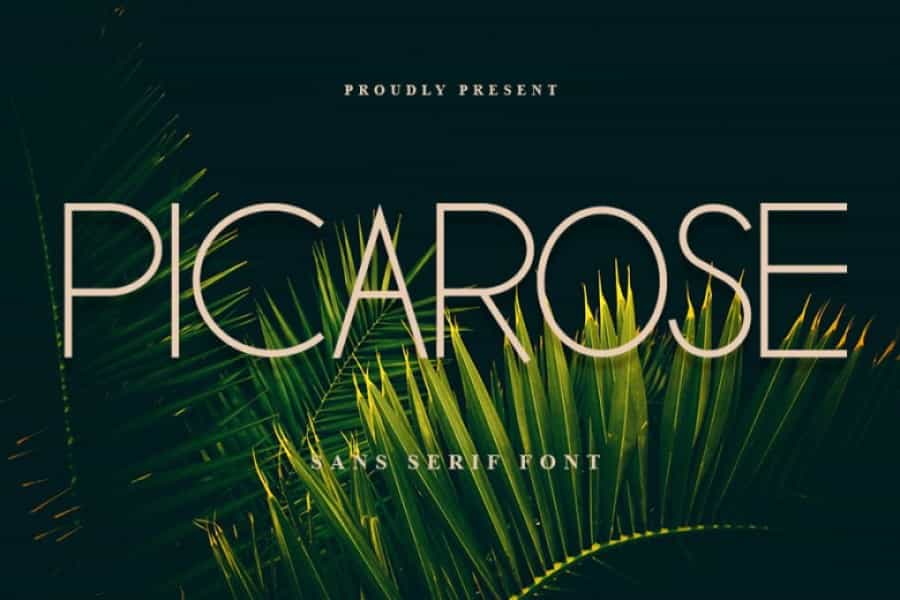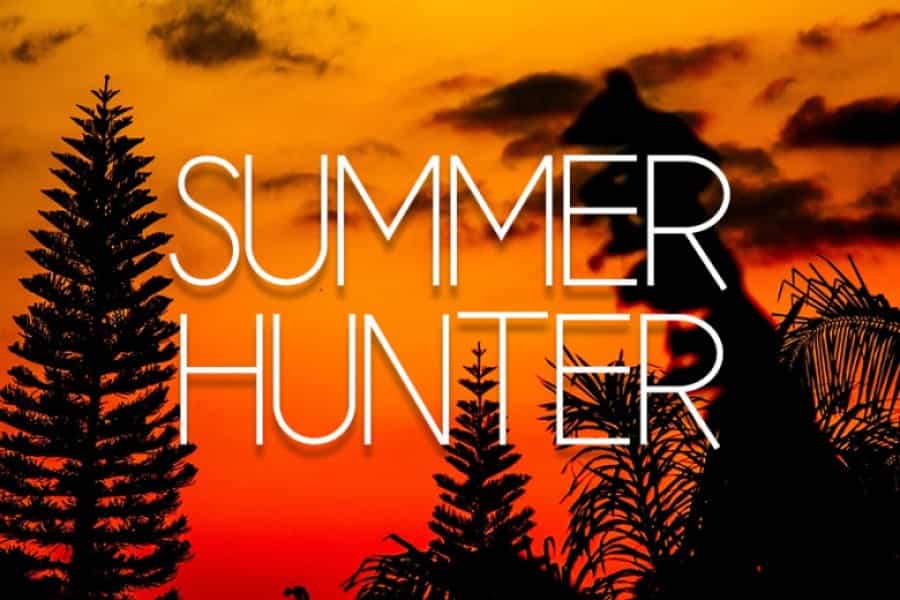
Picarose can be described as an elegant and contemporary sans-serif font. Not too thin nor too bulky, yet well balanced and diverse in appearance; Picarose was created to improve the visual impact of designs.